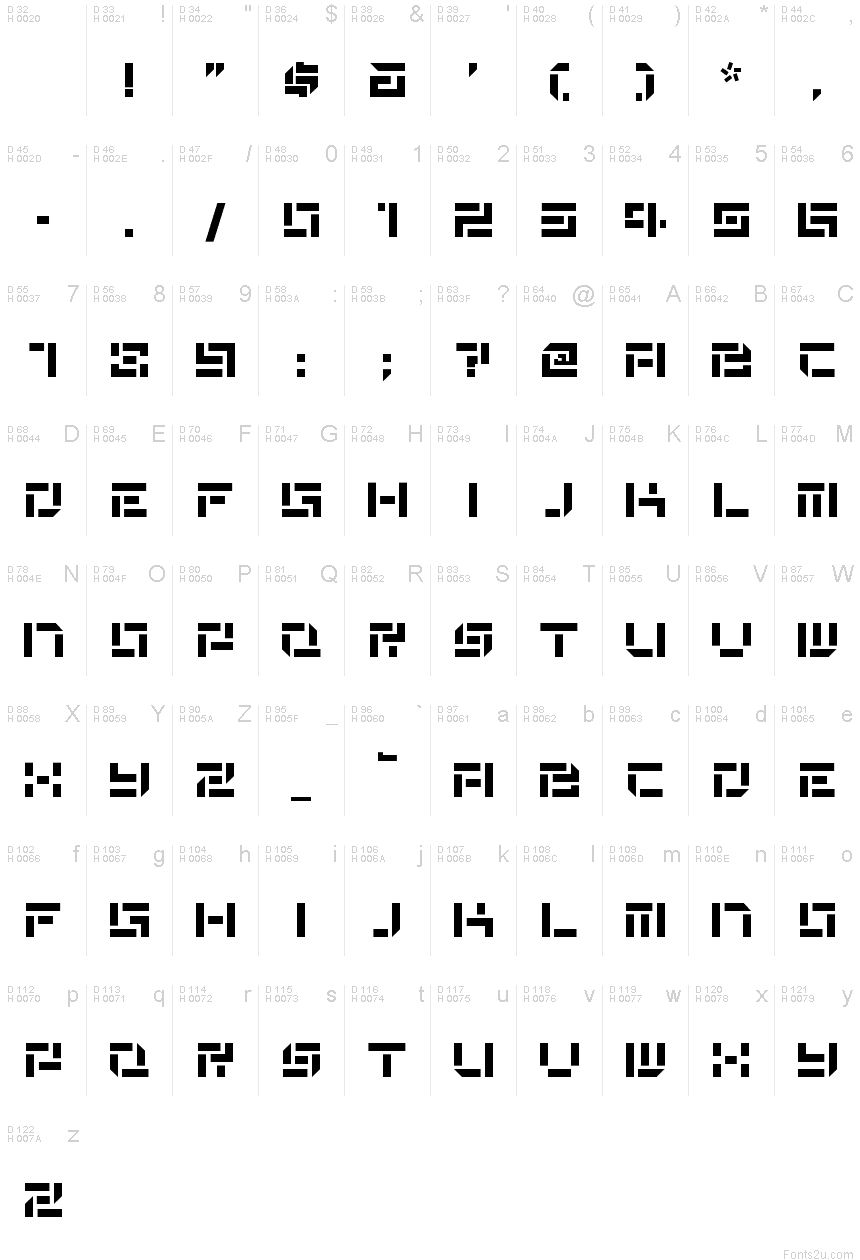
DeStencilNF
De Stencil NF font by Nick Curtis is a free techno stencil typeface that looks like it was cut straight from a sci-fi bulkhead. Its square, modular forms lock into a tight grid, with hard corners and precise stencil gaps that feel engineered rather than drawn. The result is brisk, mechanical lettering that reads like a machine code broadcast or a warning label from the near future.
Using De Stencil NF, you get a bold tool for gaming logos, esports branding, sci-fi posters, tech event graphics, industrial packaging, and futuristic UI mockups. This free font holds up best at larger sizes, where the stencil cuts and pixel-like geometry stay crisp and legible. Pair it with a clean, neutral sans serif for body copy to let De Stencil NF handle all the loud, high-impact headlines.